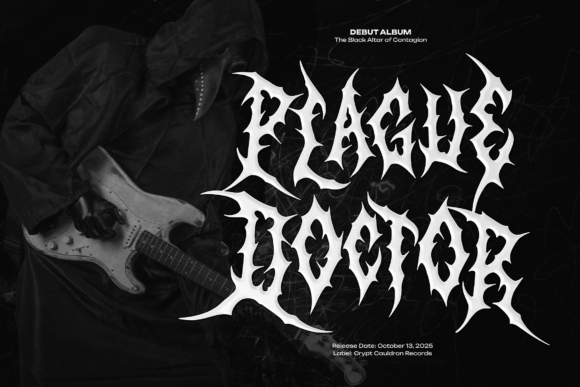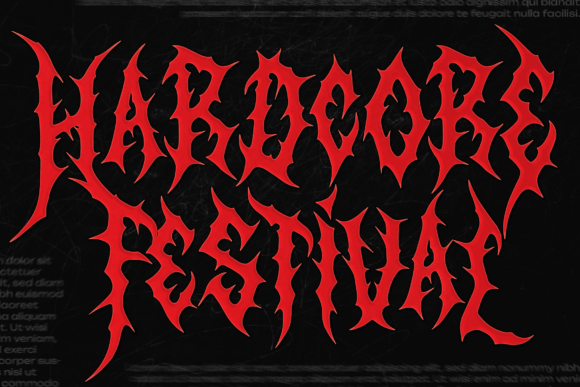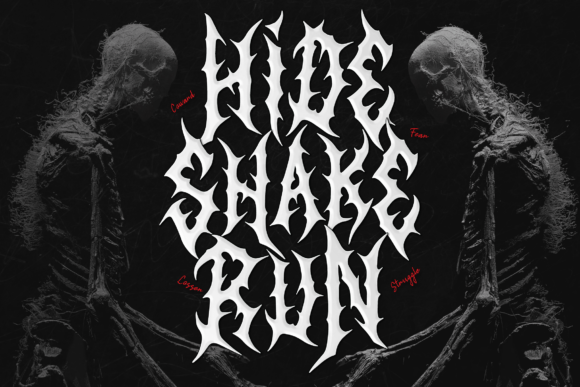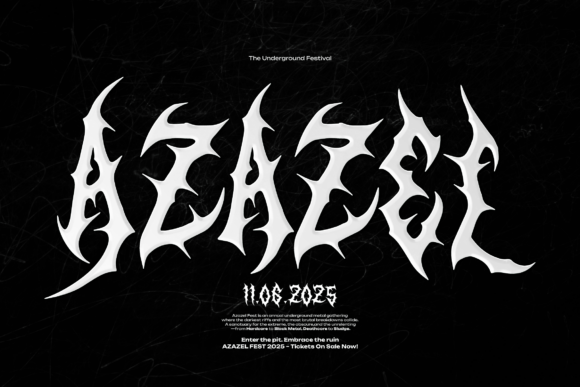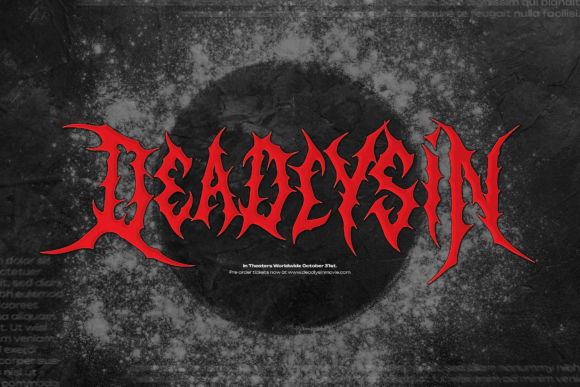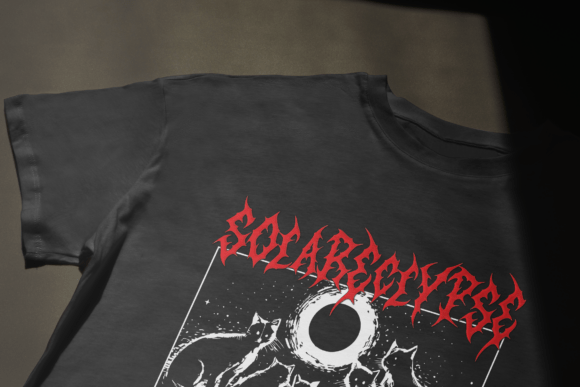
The Ultimate Guide to BlekMary Font: Unleash Your Creativity with a Black Metal Twist
I’ll never forget the time I was working on a logo design project for a heavy metal band. I had all the design elements in place, but something was missing – the perfect font. That’s when I stumbled upon BlekMary, a black metal font that instantly elevated my design to the next level. If you’re a designer, crafter, or creative hobbyist looking for a font that exudes a bold, edgy vibe, you’re in the right place!
What Makes BlekMary Font So Special?
BlekMary is a versatile black metal font suitable for a wide range of projects, including logos, branding projects, homeware designs, product packaging, mugs, quotes, posters, shopping bags, t-shirts, book covers, name cards, invitation cards, greeting cards, labels, photography, watermarks, special events, and more. Its unique design makes it perfect for adding a touch of industrial chic to any project.
What I Love About BlekMary Font
• ✨ Unique and bold design: BlekMary’s black metal font style is unlike anything you’ve seen before. It’s perfect for creating striking designs that grab attention.
• ✅ Highly versatile: Use BlekMary for a wide range of projects, from logos and branding to packaging and merchandise.
• 💡 Instant impact: The font’s edgy design instantly adds a touch of industrial chic to any project.
While BlekMary is an amazing font, there are a few things to keep in mind:
• ⚠️ Legibility at small sizes: Like many black metal fonts, BlekMary can be challenging to read at very small sizes. Make sure to test the font at different sizes to ensure it works for your project.
• 🤔 Limited use cases for body text: Due to its bold design, BlekMary is best suited for headlines, titles, and short text snippets. For longer body text, consider pairing it with a more readable font.
The Story Behind BlekMary Font
BlekMary was designed by a team of typography enthusiasts who wanted to create a font that captured the essence of black metal music. Inspired by the genre’s bold, industrial aesthetic, they crafted a font that’s both striking and versatile. Today, BlekMary is used by designers and creatives around the world to add a touch of edginess to their projects.
Q: What type of projects is BlekMary best suited for?
A: BlekMary is perfect for projects that require a bold, edgy font, such as logos, branding projects, homeware designs, product packaging, and more.